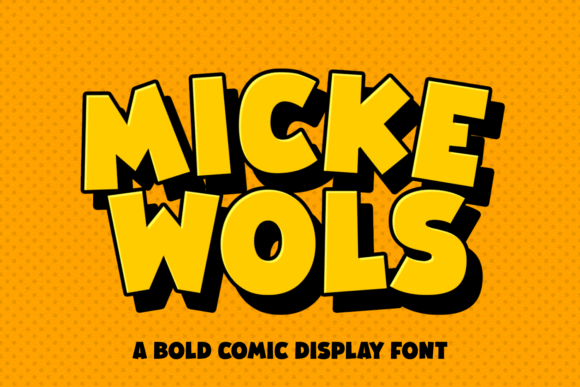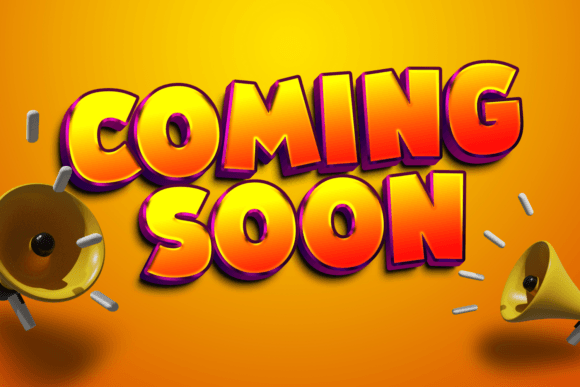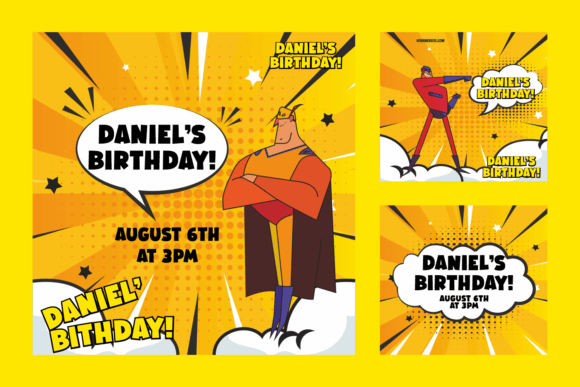
Micke Wols is a bold and striking comic display font. Express your creative ideas with this awesome font that perfectly suits a wide range of projects! Try it on posters, books, magazine covers, advertising materials, and more.
Micke Wols Font